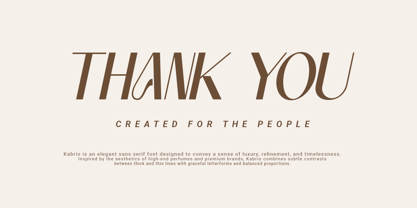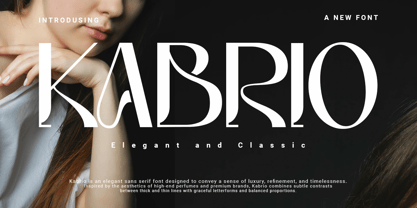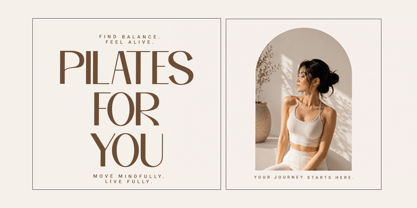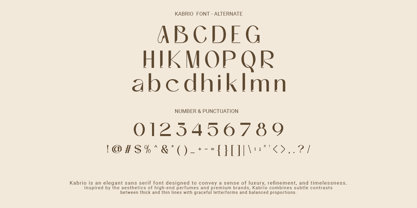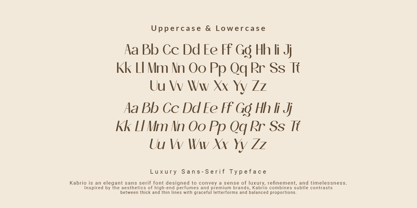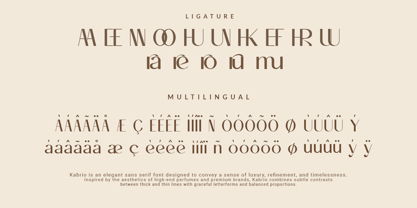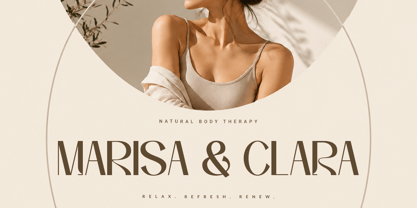
Kabrio
The Kabrio Font Family was designed by Agung Sudirman and published by Agung Sudirman. Kabrio contains 2 styles and family package options. More about this family
Kabrio is a modern sans serif typeface crafted to deliver a clean, elegant, and contemporary visual style. Designed with balanced proportions, smooth curves, and minimalist details, Kabrio brings a professional yet stylish appearance to every design project. Its modern structure creates excellent readability while maintaining a strong and sophisticated personality, making it suitable for both digital and print applications.
Kabrio is highly versatile and works beautifully for branding, logos, headlines, editorial layouts, packaging, advertising, websites, social media content, fashion campaigns, and luxury product presentations. The font carries a sleek and timeless aesthetic that blends simplicity with modern creativity, allowing designers to create visuals that feel fresh, refined, and memorable.
With its harmonious letterforms and clean geometric construction, Kabrio offers a perfect balance between functionality and artistic expression. Whether used for minimalist branding or bold contemporary designs, Kabrio helps communicate confidence, clarity, and modern elegance in every composition.